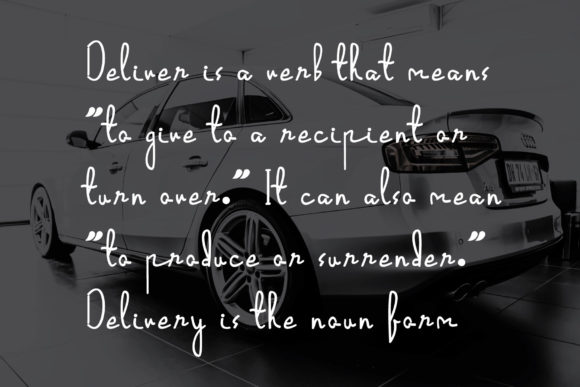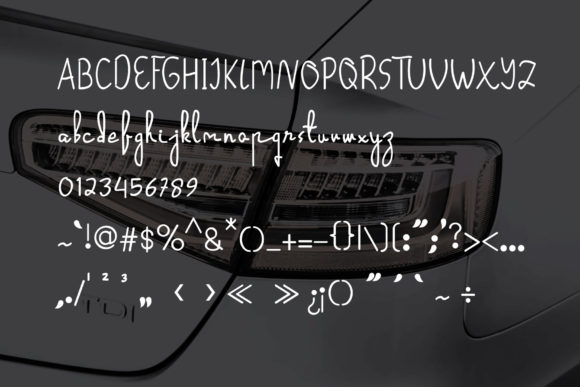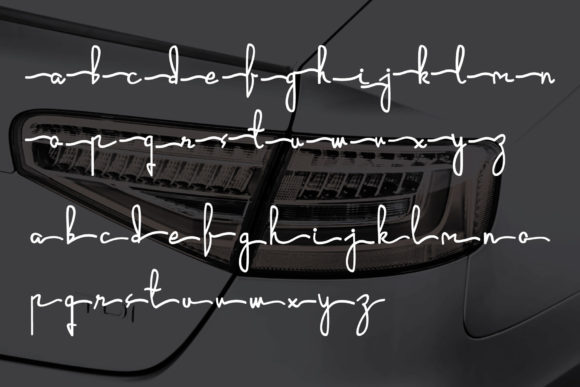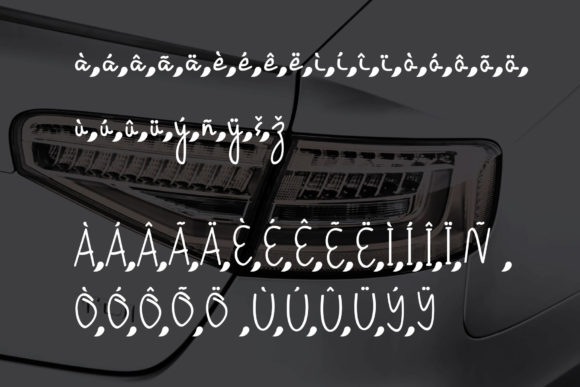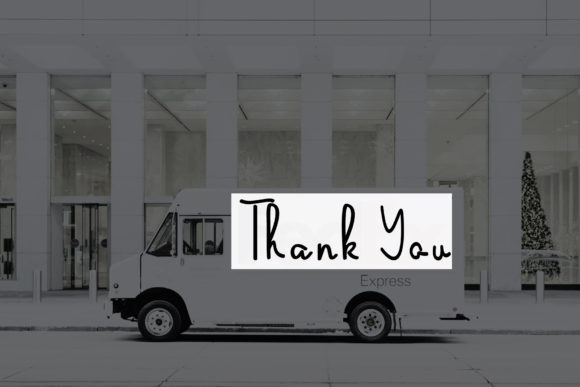
The Perfect Handwritten Touch: Deliver Font
There’s nothing quite like the rush of inspiration that comes with brainstorming a new design project. The blank page stares back at you, waiting for your creative spark to ignite. As you start sketching out ideas, you know you need a font that’s going to bring your vision to life. And that’s exactly where Deliver Font comes in – a beautiful, timeless handwritten font that’s perfect for adding a touch of elegance to your designs.
Deliver Font is more than just a font – it’s a way to add personality to your branding, logos, and quotes. With every letter uniquely crafted, this font has the power to make your design stand out from the crowd. Whether you’re a seasoned designer or just starting out, Deliver Font is a valuable tool to have in your arsenal. Its versatility and timeless charm make it a go-to choice for creatives who want to deliver (pun intended!) a truly memorable design.
- Unique style: Deliver Font has a distinctive and modern aesthetic that can add a touch of sophistication to any design project.
- Legibility: The font is highly legible, making it perfect for body text and readability-heavy projects.
- Flexibility: Deliver Font comes in a range of weights, from light to bold, allowing designers to choose the perfect fit for their project.
- Limited language support: Deliver Font may not be compatible with languages that require more complex typography, such as Arabic or Chinese.
- No italic or oblique options: While the font has a range of weights, it doesn’t offer italic or oblique options, which may limit its versatility.
Overall, I think Deliver Font is a solid choice for designers looking for a modern and legible font. While it has some limitations, its unique style and flexibility make it a great addition to any design project.